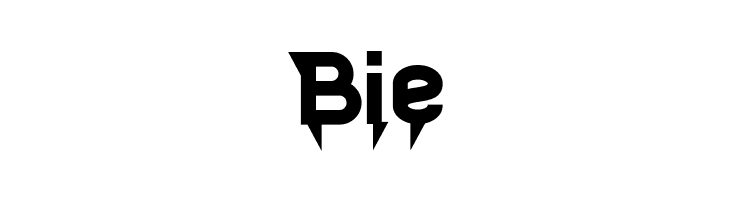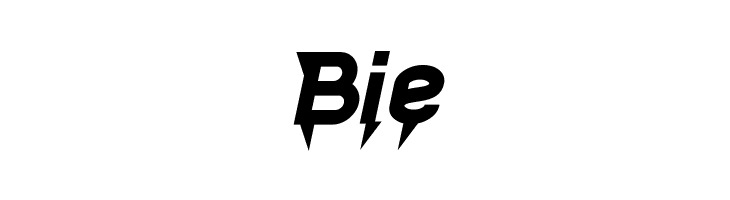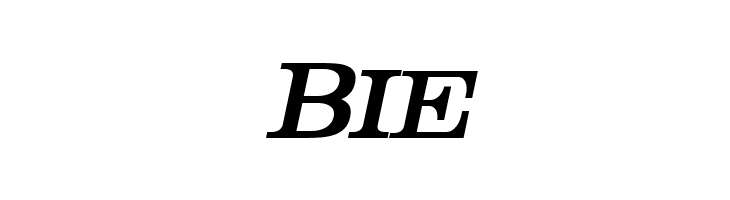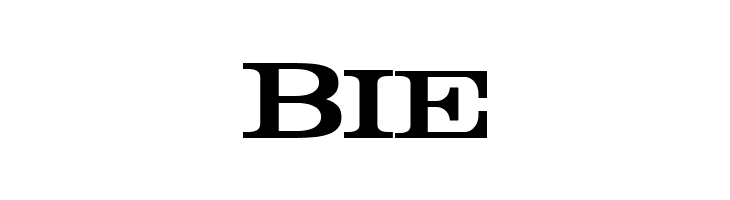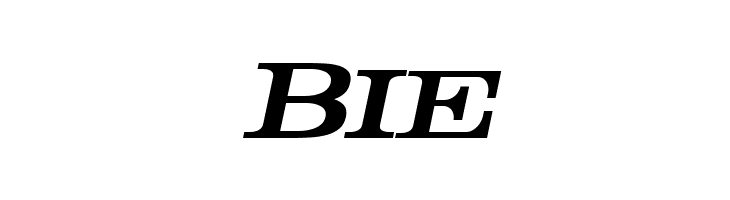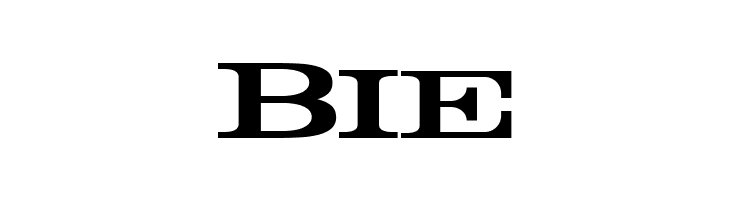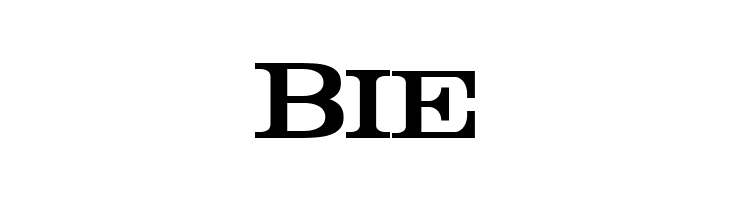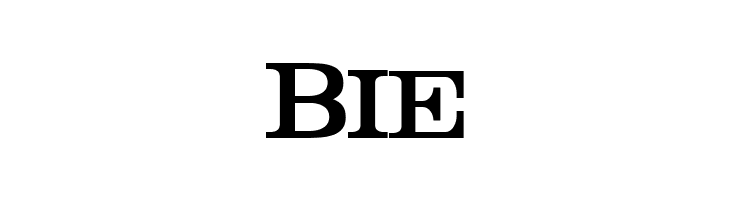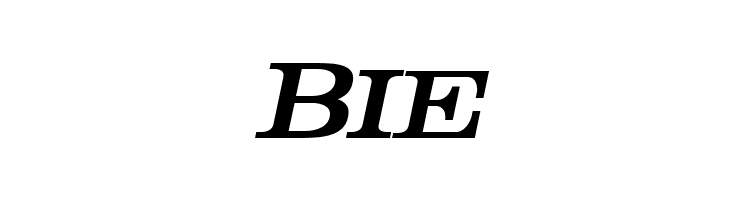
A bold, electrifying font with sharp, angular edges and dynamic style.
A bold, italicized font with a dynamic, lightning-inspired design.
A bold serif font with strong, angular serifs and a classic, authoritative style.
A bold, italicized font with high contrast and dynamic presence.
A bold, condensed serif font with strong, angular serifs.
A bold, italicized, and condensed font with a modern and dynamic style.
Ultra-condensed, tall, and bold font with a striking presence.
Ultra-condensed, bold italic font with tall, narrow letterforms.
A bold, wide serif font with expanded letterforms and strong presence.